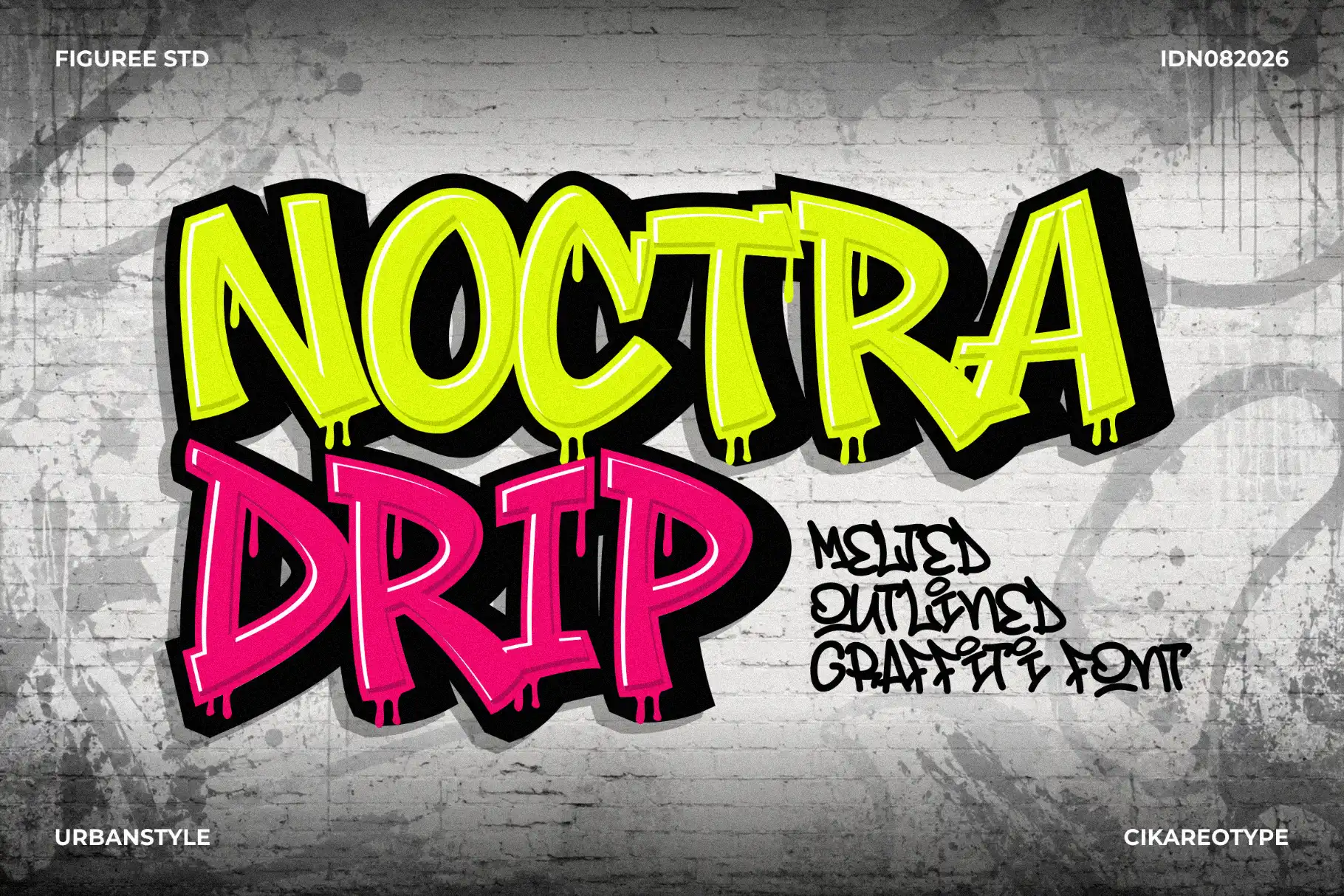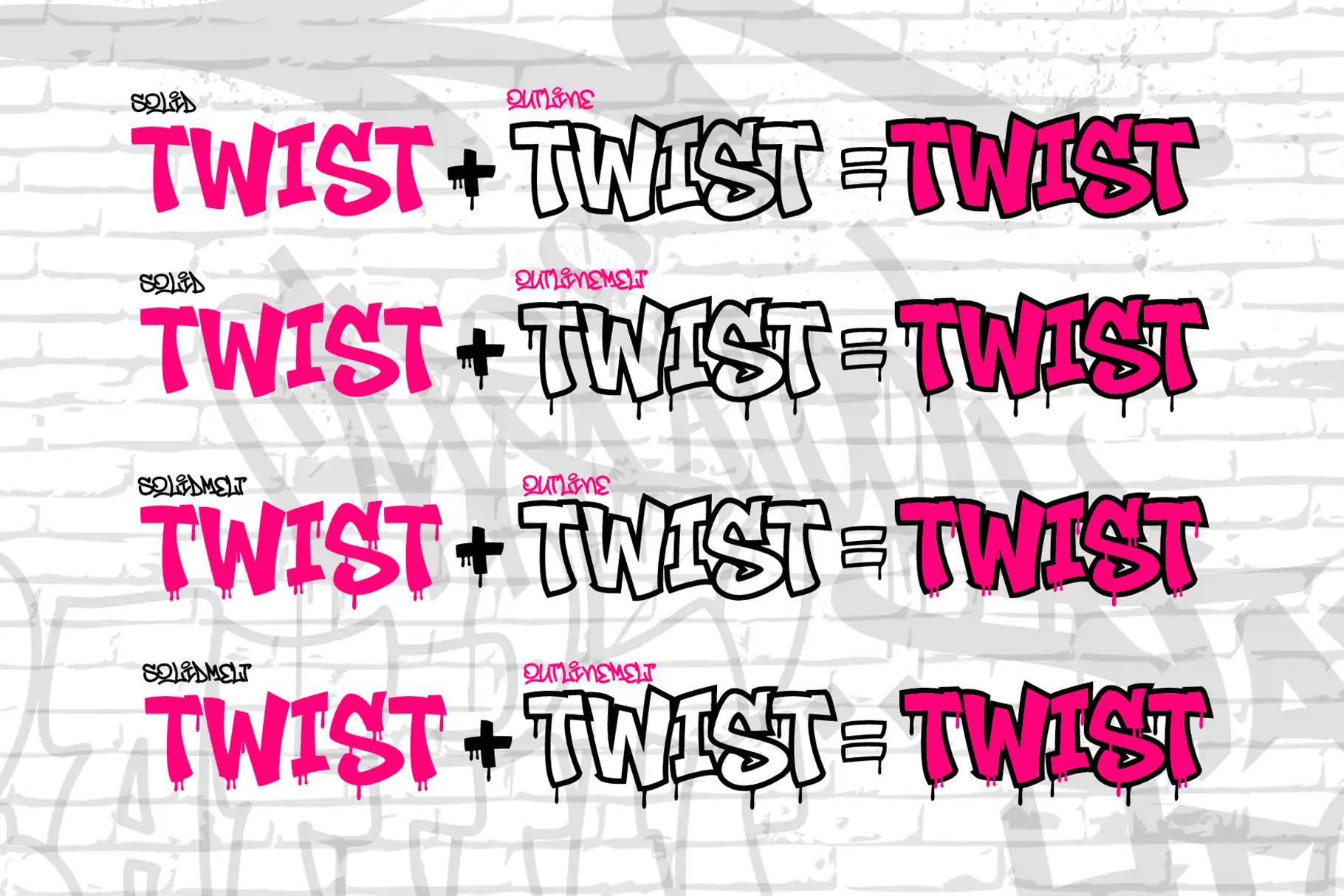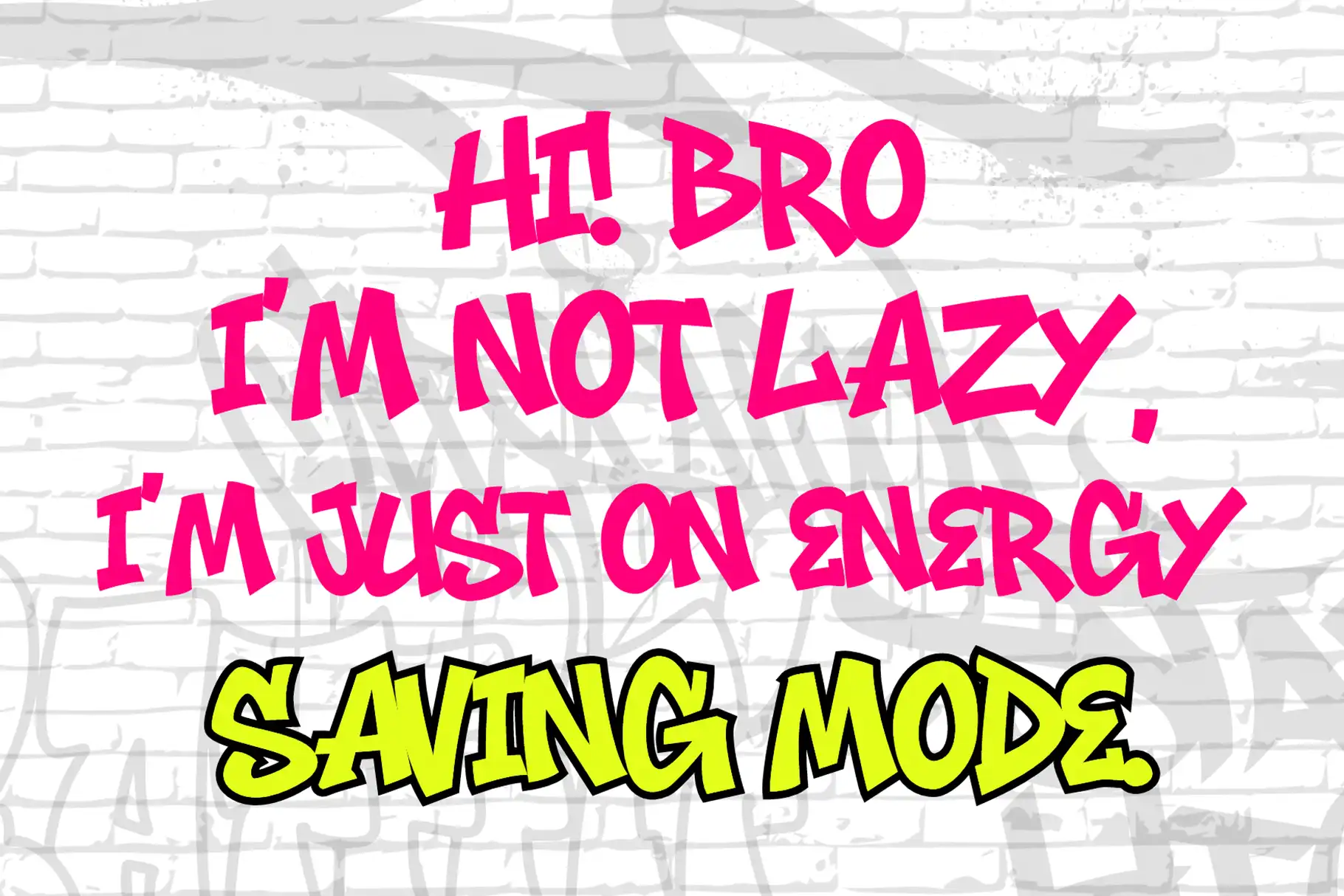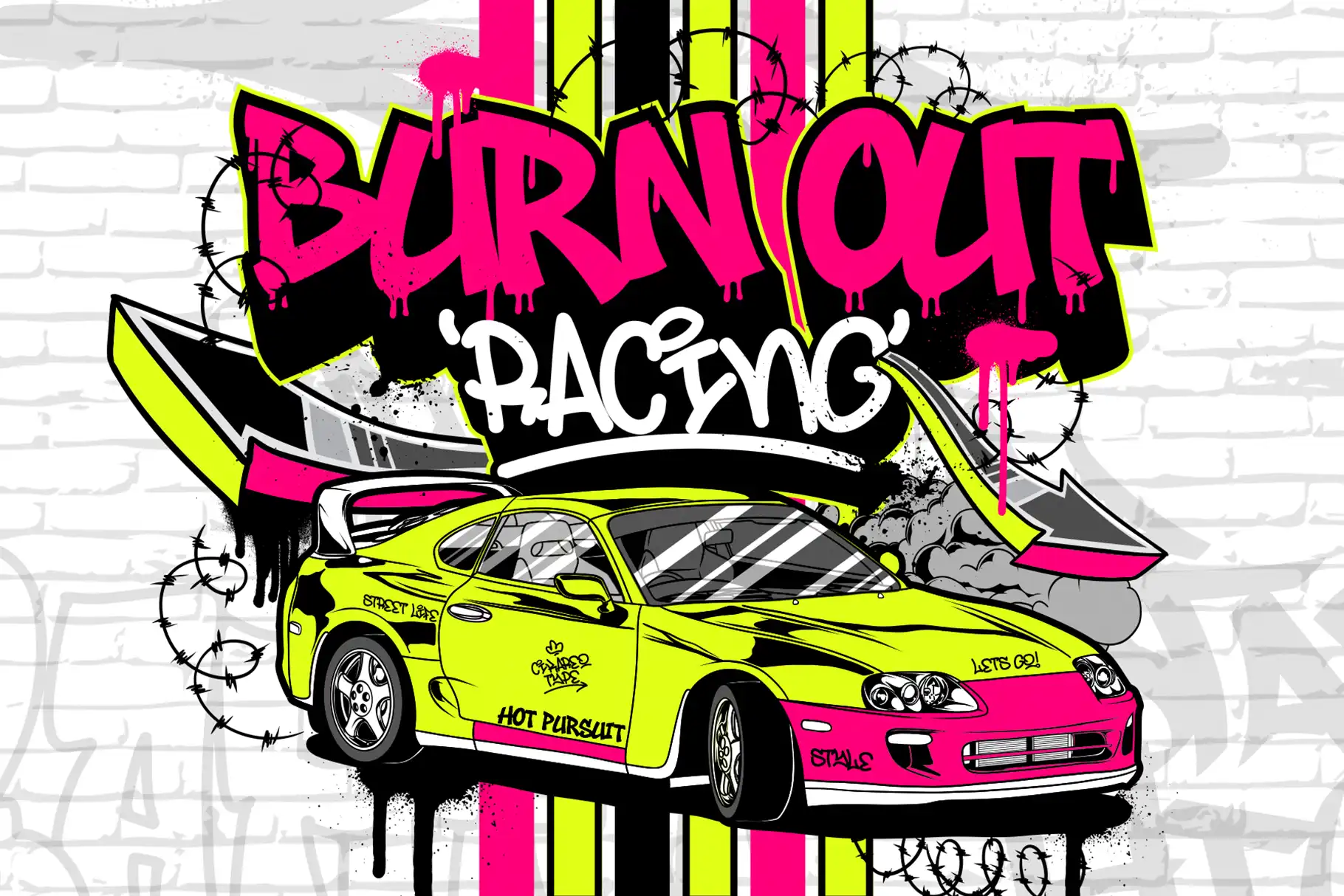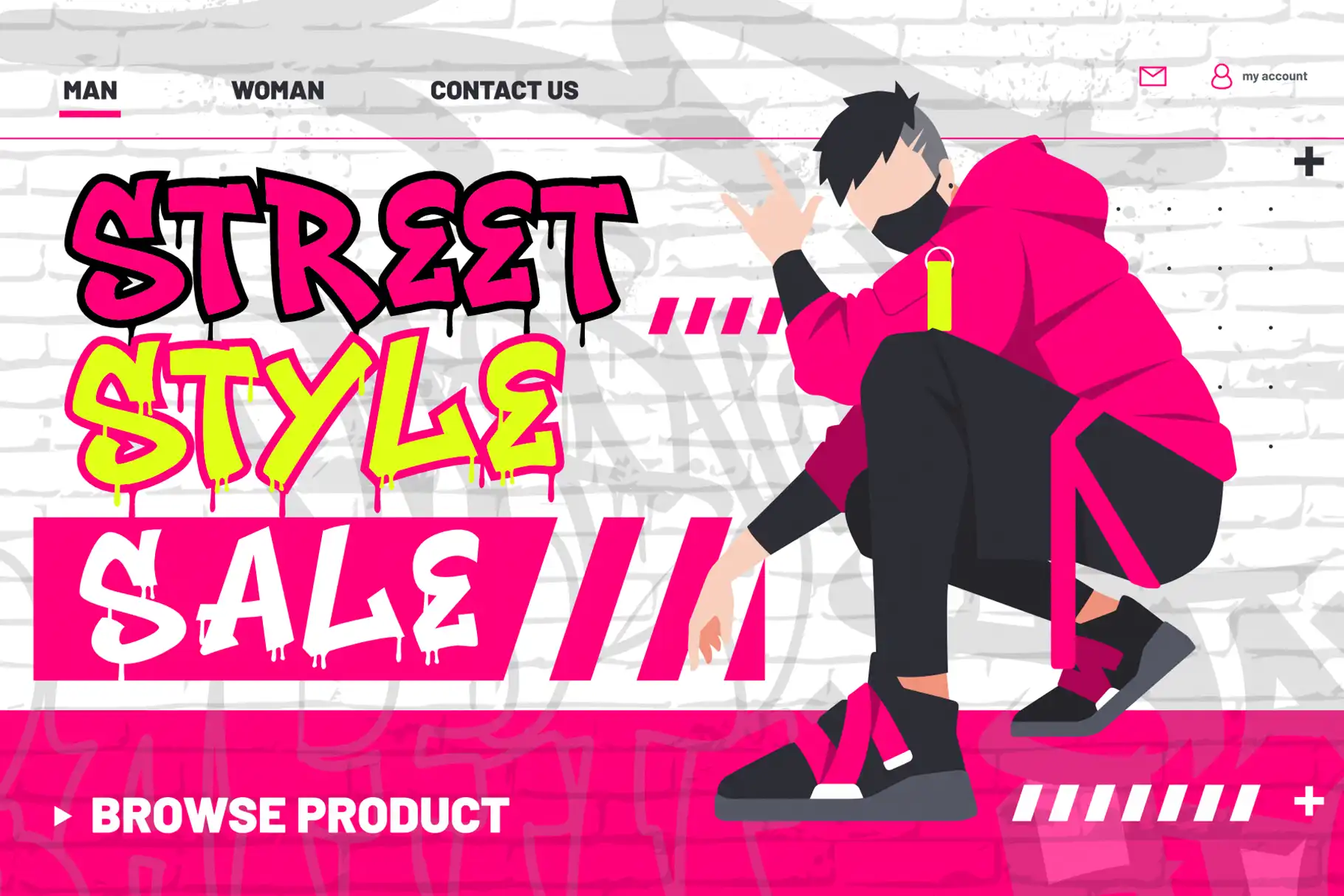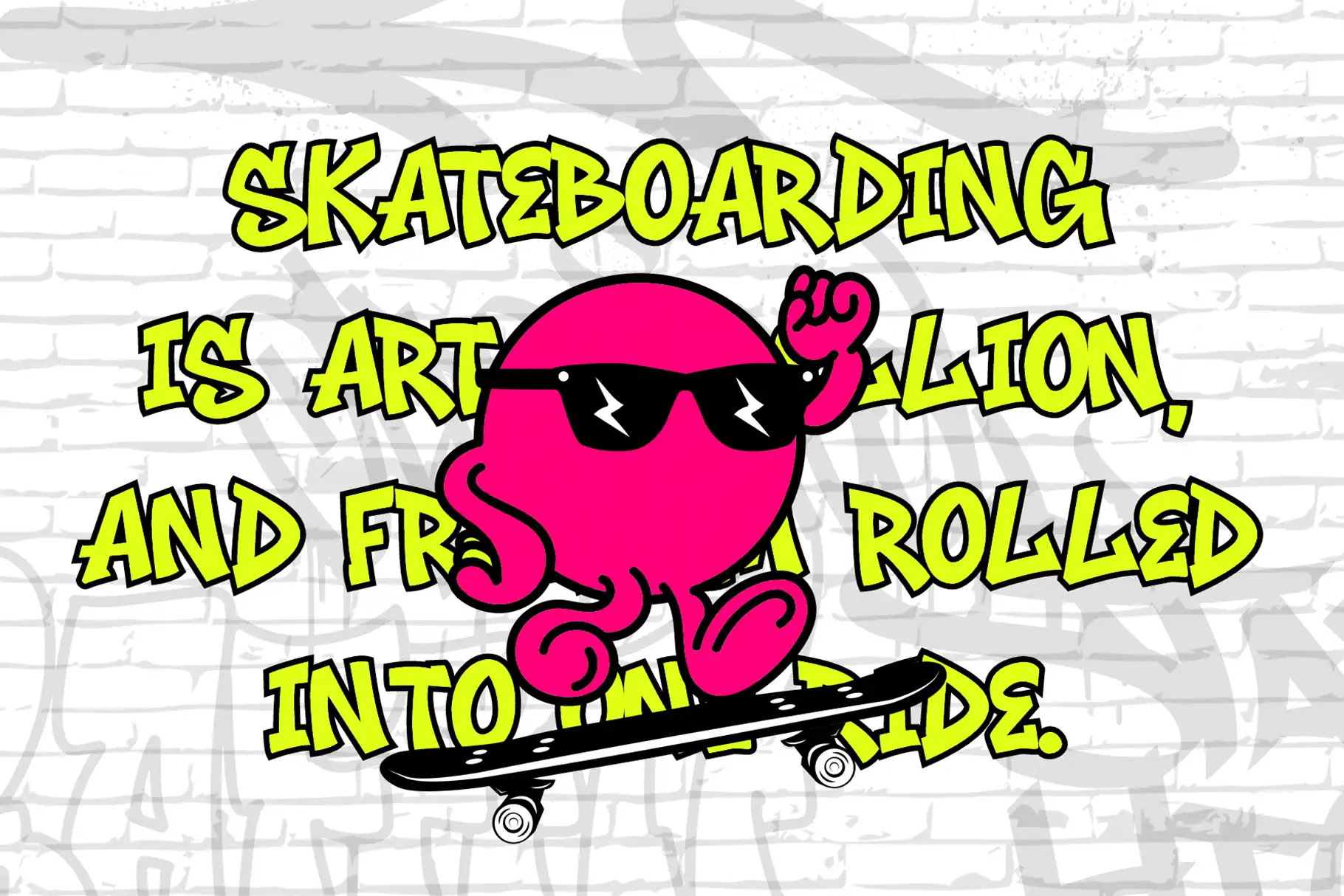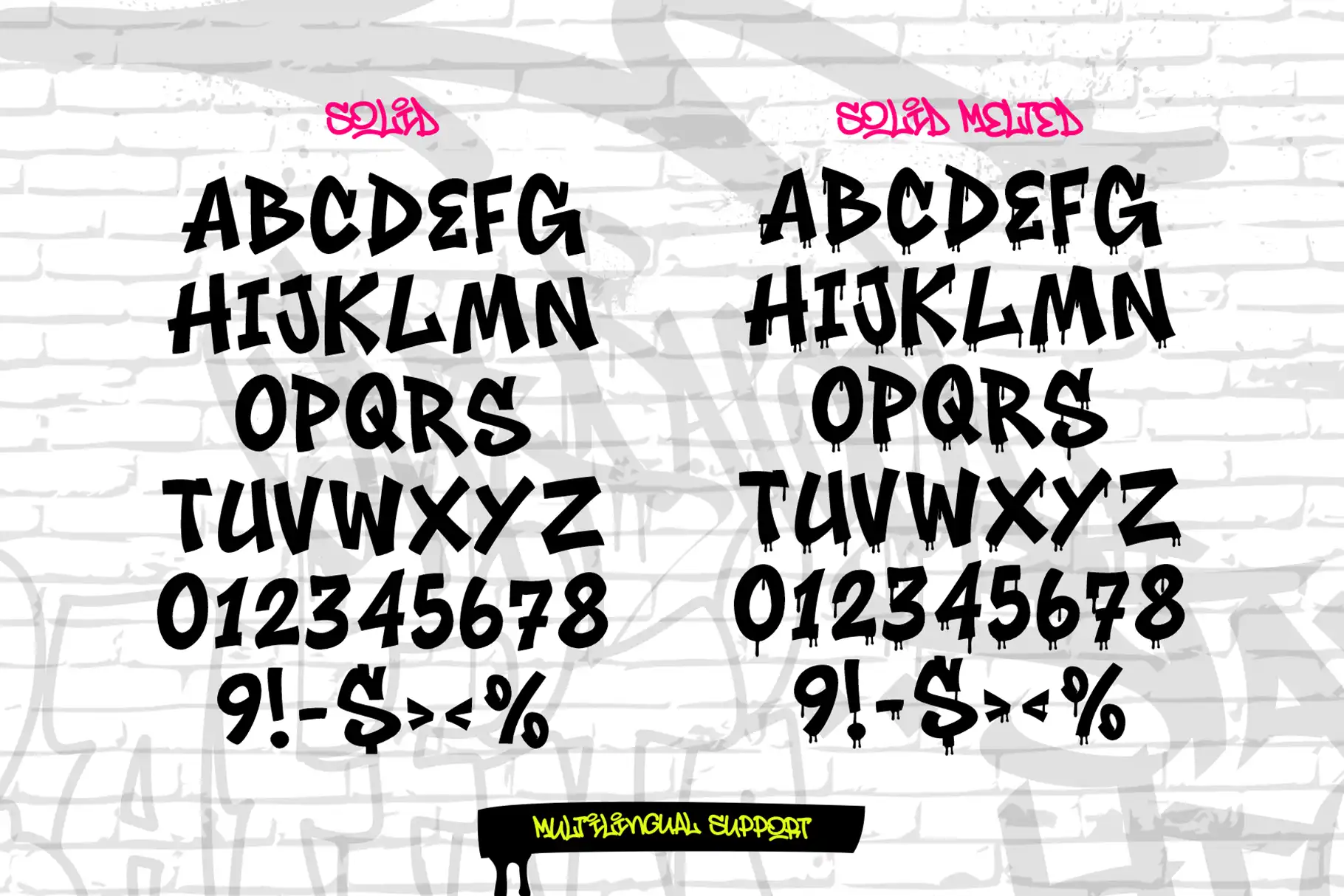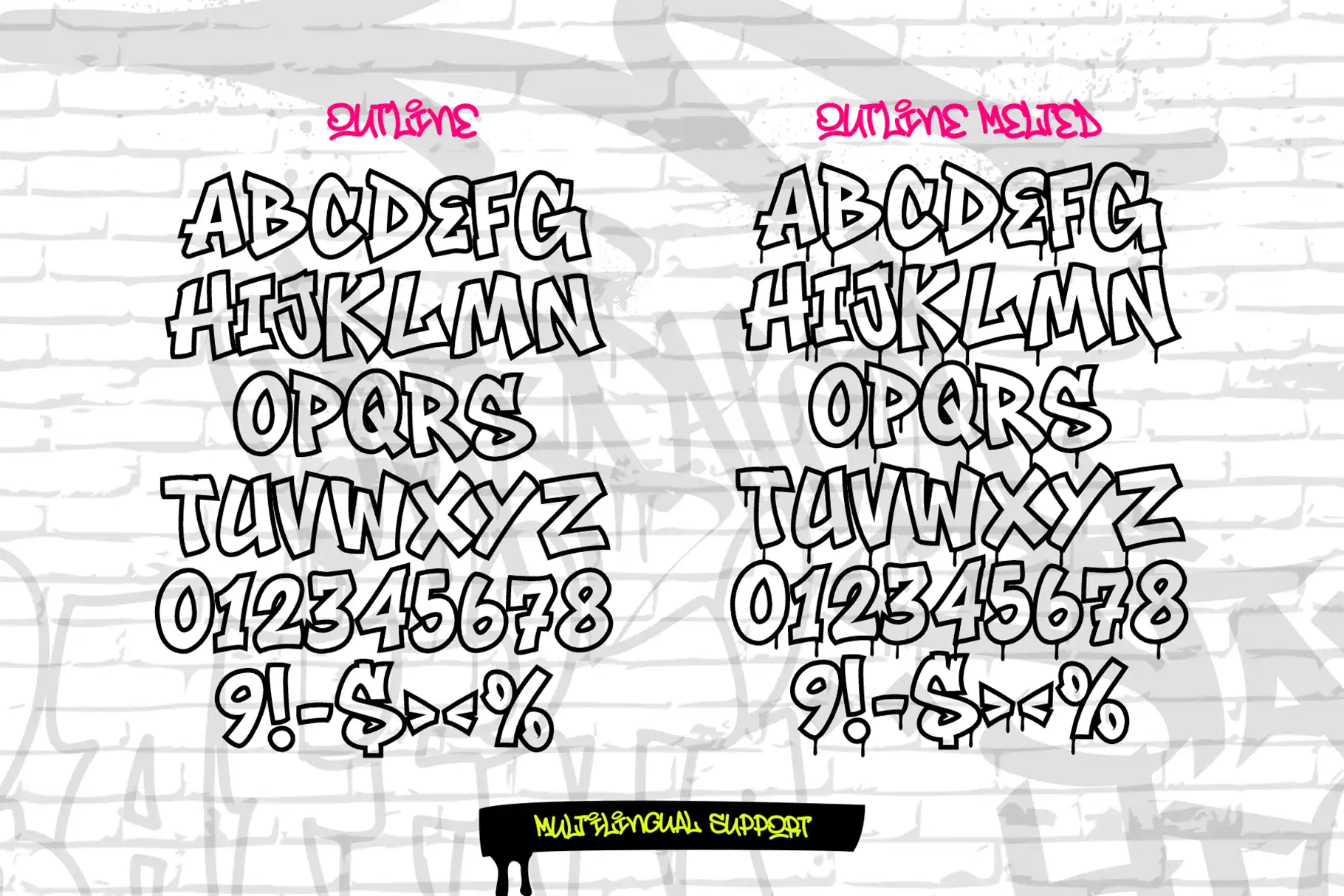
Noctra Drip Melted Outlined Graffiti Font
Noctra Drip melted outlined graffiti font brings a fluid street-art personality to bold creative projects. Built around an all-caps character set, the font combines clean solid lettering, graphic outlines, and melted versions that give your words a dripping, liquified appearance.
The four included styles let you move between cleaner urban typography and more expressive melted lettering without changing the overall visual identity of your project. Use the solid version when you need strong, direct headlines. Choose the outline style for a lighter graphic treatment, or introduce one of the melted versions when the design calls for more movement, attitude, and experimental energy.
Noctra Drip is created for designers who want typography to become a central visual element. It works especially well in compositions where a standard display font feels too controlled or conventional. The distinctive outlined and melted treatments help titles feel illustrated while keeping the workflow practical and editable.
Noctra Drip combines graffiti influence with a liquid visual direction. Its all-caps construction gives words a consistent display presence, while the available versions allow the same message to take on different personalities.
The clean solid version offers the most direct appearance. It is suitable for prominent headlines, compact logos, labels, and short statements that need immediate visual weight.
The solid melt version keeps that strong foundation while introducing a dripping finish. It is a natural choice for designs inspired by paint, slime, melting surfaces, experimental music, underground culture, or expressive street graphics.
The outline version creates a more open appearance. It can bring breathing room to large titles and make it easier to integrate typography with photography, illustrations, textures, or colorful backgrounds.
The outline melt version delivers the most graphic treatment in the collection. It combines open letterforms with a melted silhouette, creating typography that feels playful, rebellious, and visually unconventional.
Because all four versions share the same creative direction, designers can build a coordinated visual system across posters, merchandise, packaging, social posts, and promotional materials.
Best Use Cases
Noctra Drip is designed primarily for display typography. It performs best in headlines, titles, short phrases, logos, and other areas where the lettering has enough space to show its outline and melted details.
Use it for streetwear graphics, apparel prints, event posters, album artwork, music promotions, YouTube thumbnails, social media campaigns, sticker designs, product labels, packaging, editorial covers, and urban branding concepts.
The melted styles are especially effective for projects connected to underground music, street culture, alternative fashion, skate-inspired visuals, creative events, horror graphics, experimental products, and youth-focused campaigns.
For digital content creators, Noctra Drip can give thumbnail titles and promotional graphics a recognizable visual signature. For merchandise designers, it can turn a short phrase into the primary artwork rather than treating typography as a secondary element.
The outline styles can also support color-driven compositions. Designers can place them over textured artwork, photographs, gradients, or illustrations while maintaining a clear graffiti-inspired identity.
Key Features
- All-caps character set
- Numbers included
- Punctuation included
- Multilingual support included
- Clean solid version
- Solid melted version
- Clean outline version
- Outline melted version
- Four coordinated font styles
Noctra Drip gives designers several ways to develop one visual concept. Instead of relying on a single graffiti treatment, you can select a clean, outlined, solid melted, or outline melted version depending on the composition.
This flexibility is valuable when producing a coordinated collection of assets. A solid headline can lead the main poster, while an outline version appears on supporting social graphics. The melted styles can then become the expressive element used for merchandise, album artwork, stickers, or campaign highlights.